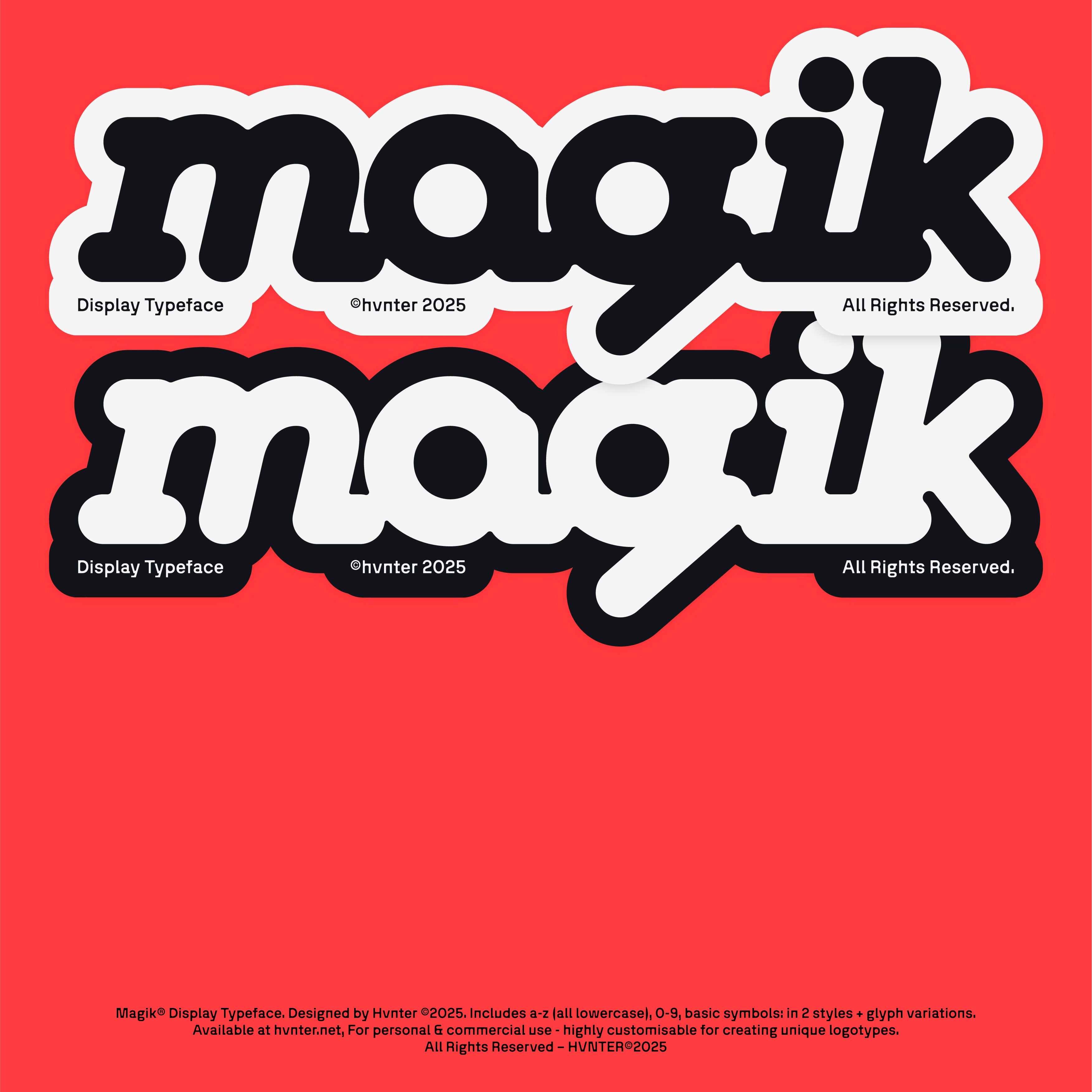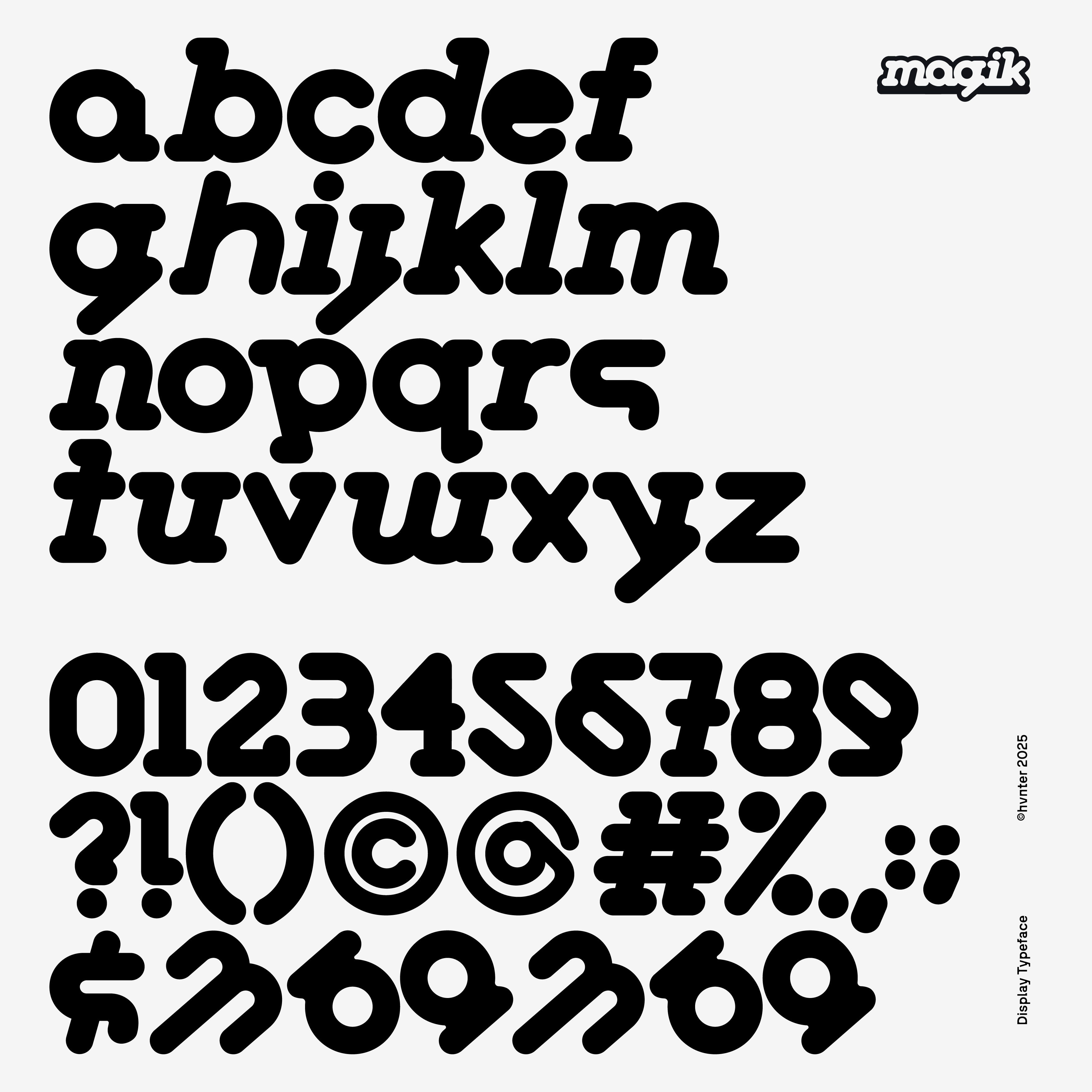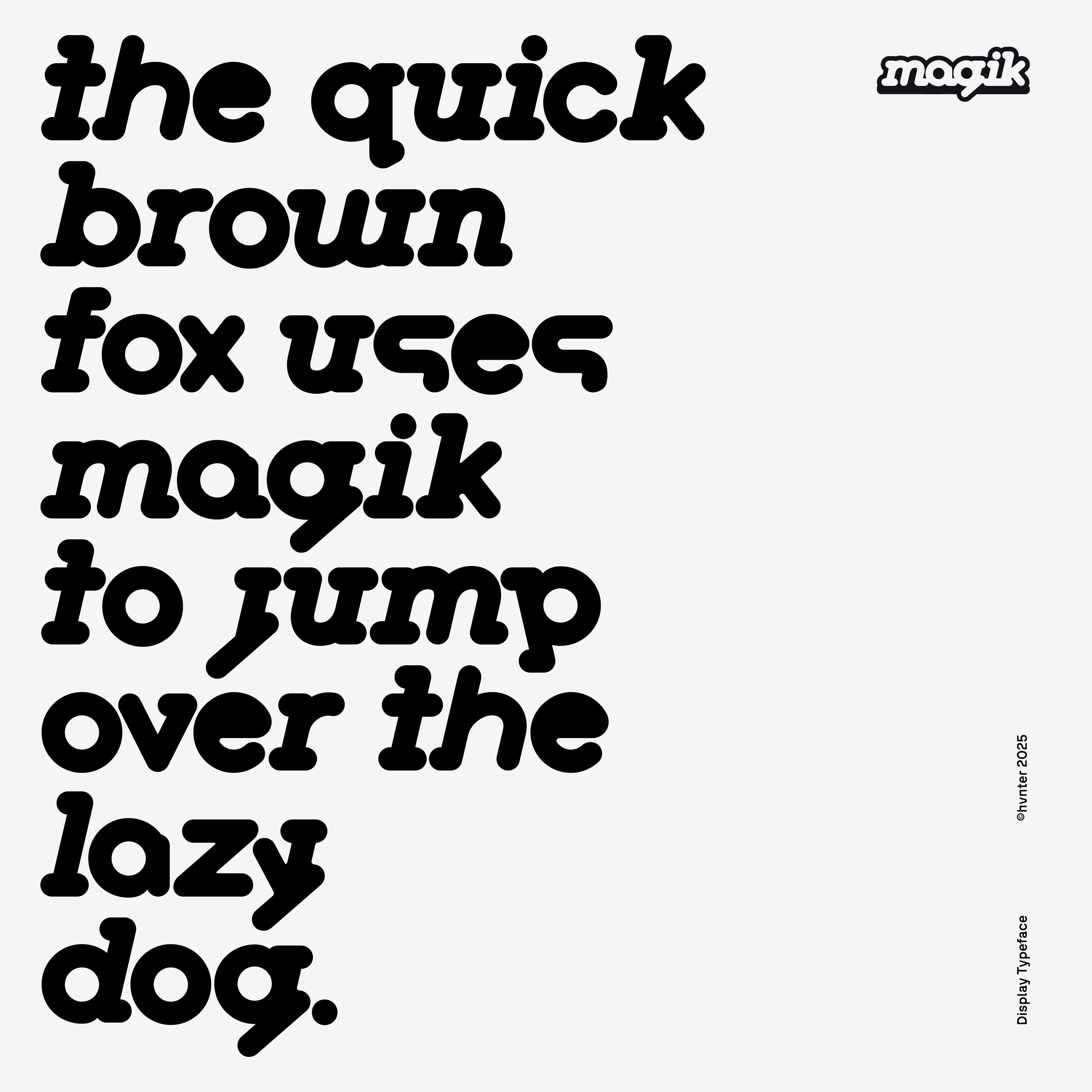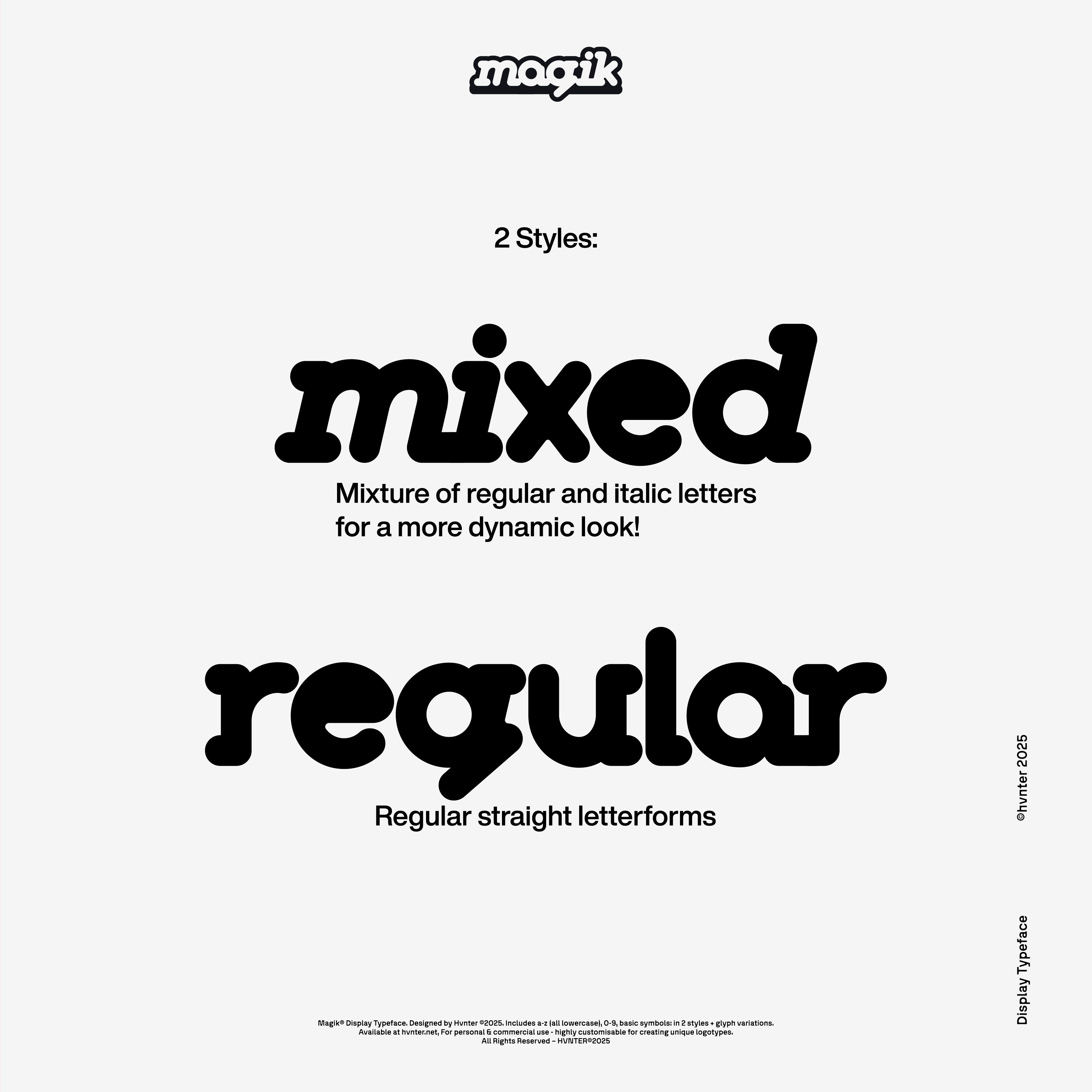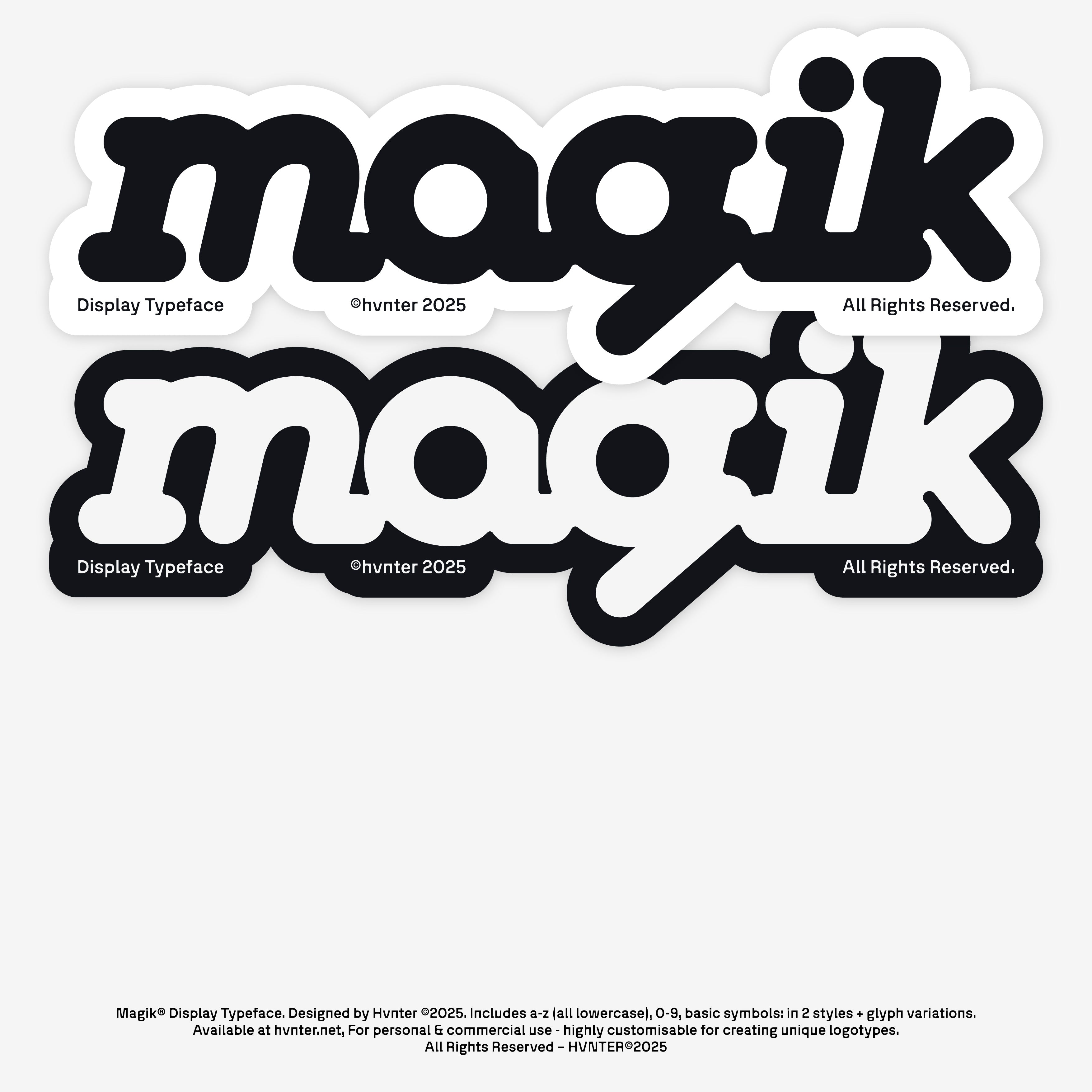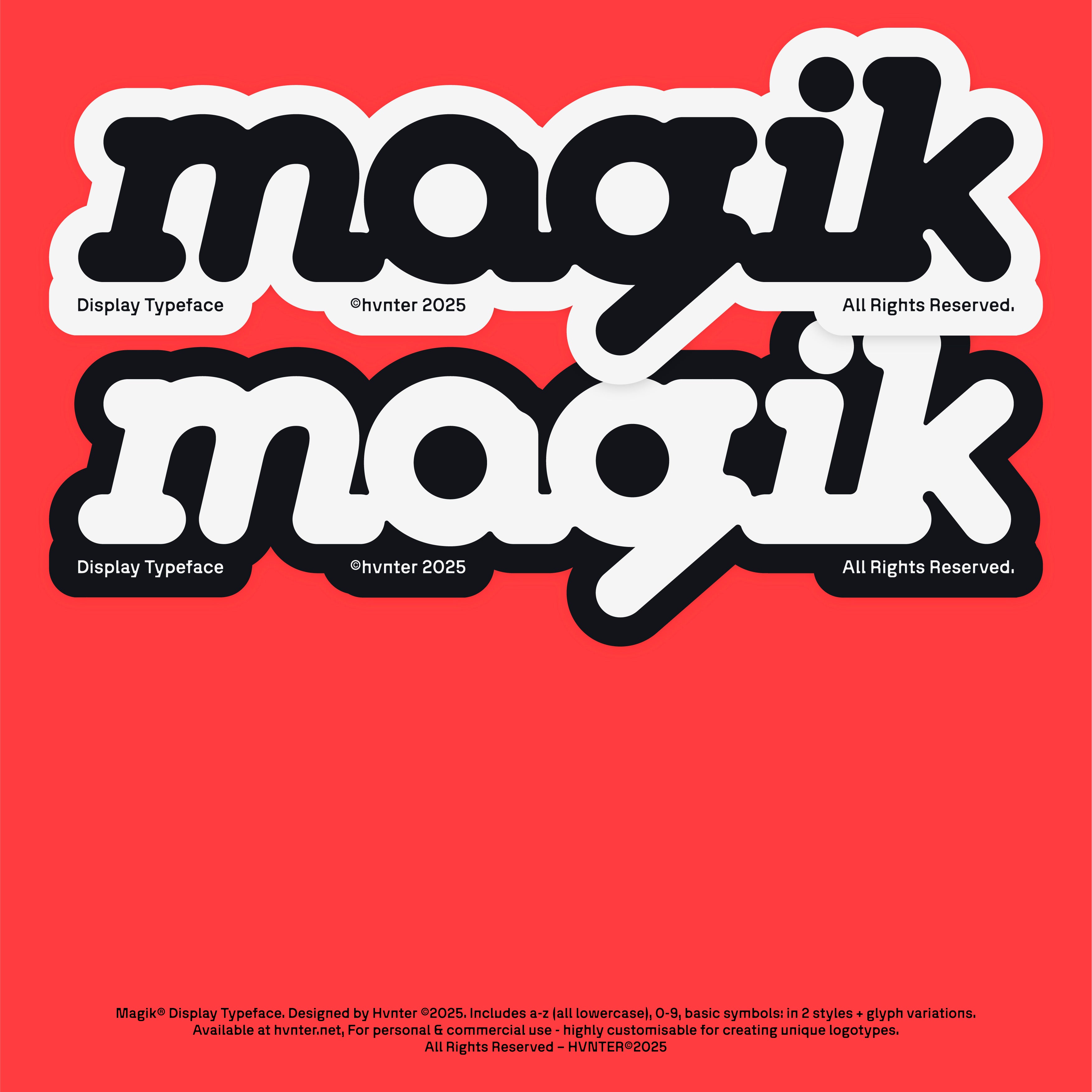
Magik Typeface
Magik Typeface includes two styles: Regular and Mixed, which features a combination of regular and italic letterforms. It supports a-z, 0-9, and basic symbols.